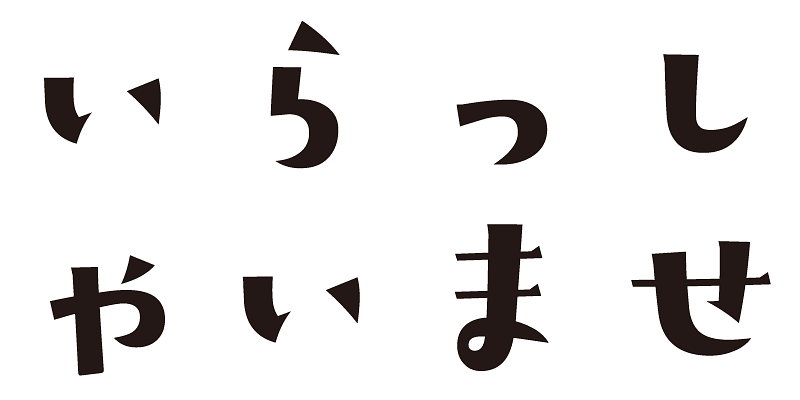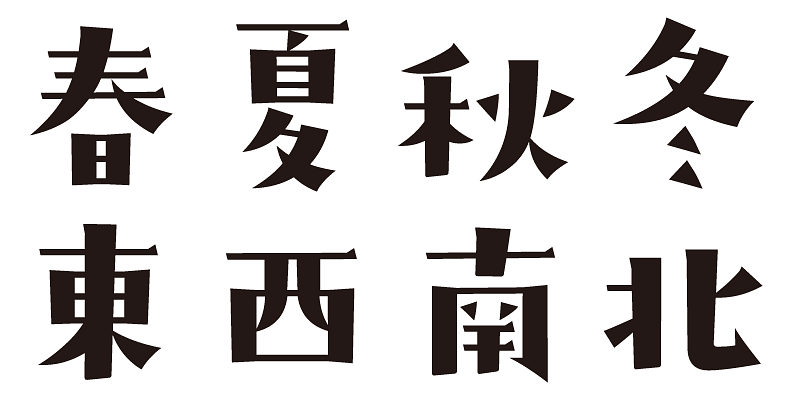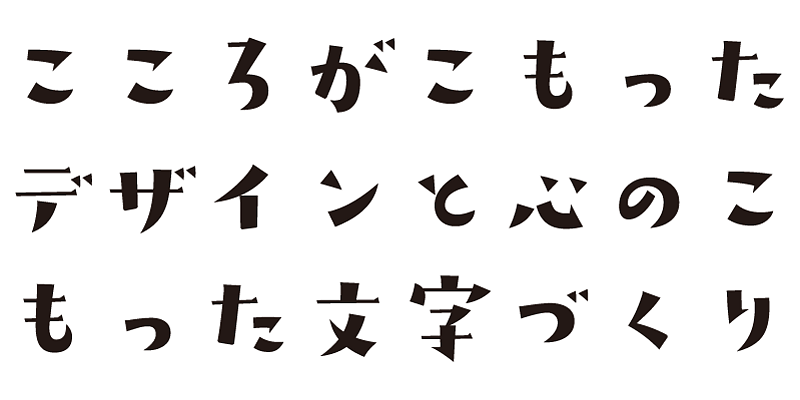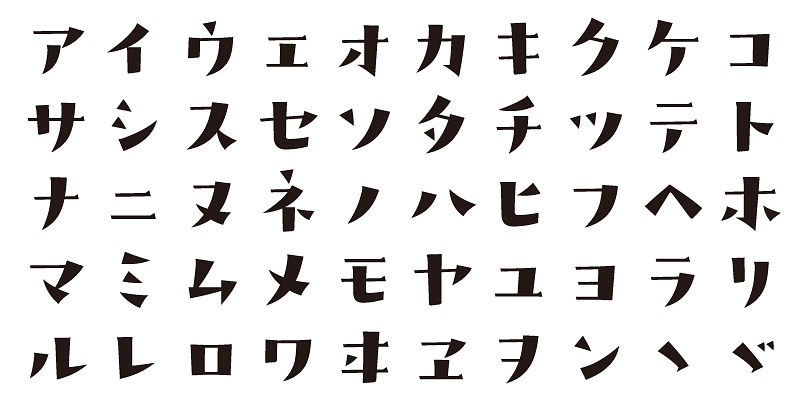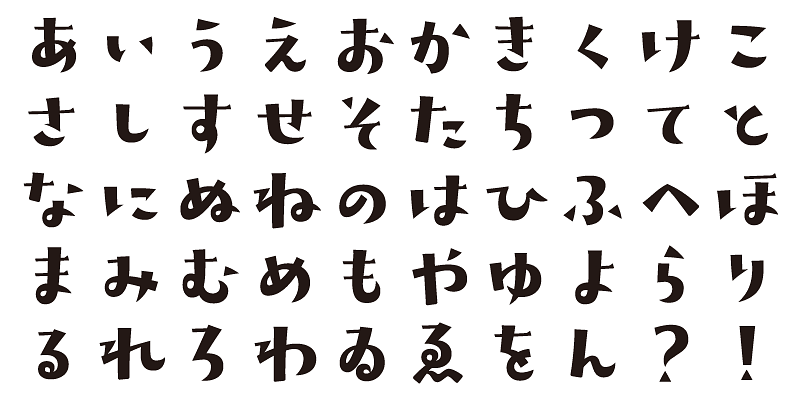
Moving lightly, joyful, bright, and warm. Relaxed, pokkari (light and airy), hokkori (soft and cozy). This is a typeface with a sense of openness.
This font includes top 1,000 kanji characters chosen from character frequency tables made by newspaper companies, publishing houses and linguistic research institutes, plus about 400 alphanumeric, kana characters and punctuation marks.
We design typefaces with the hope that they will add underlying meaning to words expressed. We wish the user to feel good and experience comfort and joy when using these typefaces.